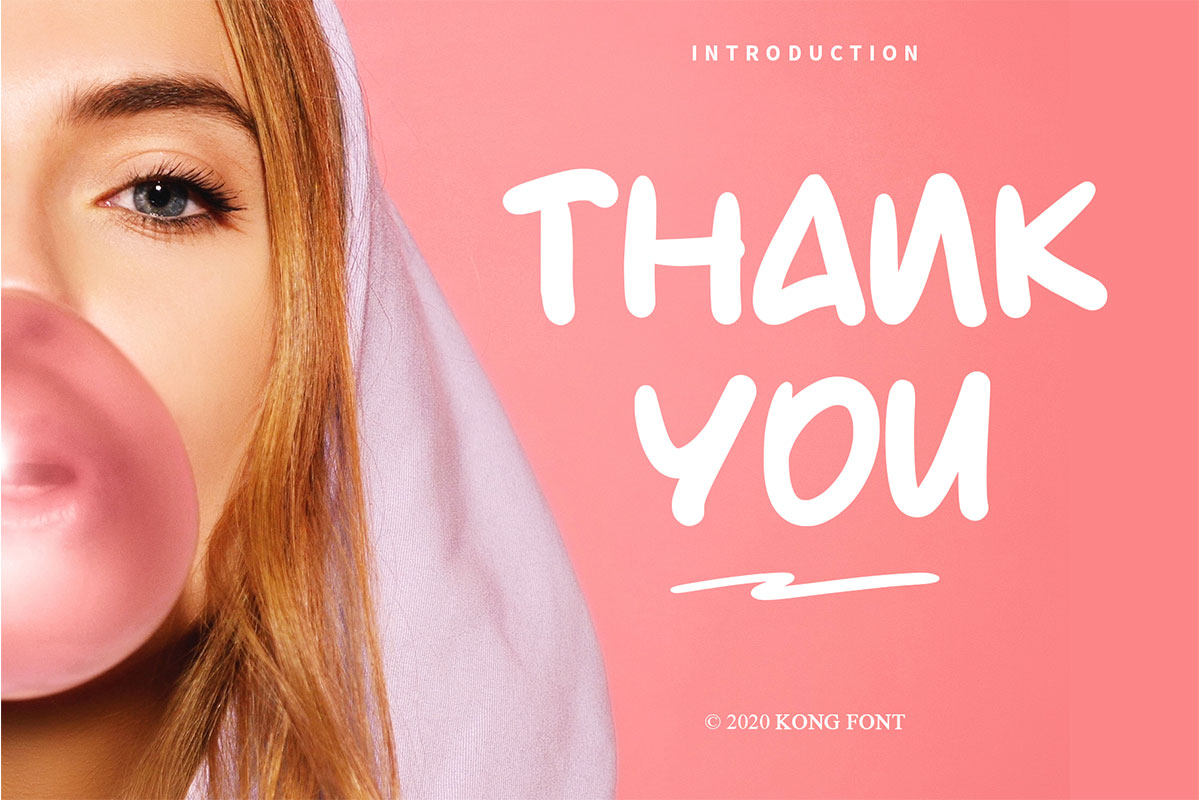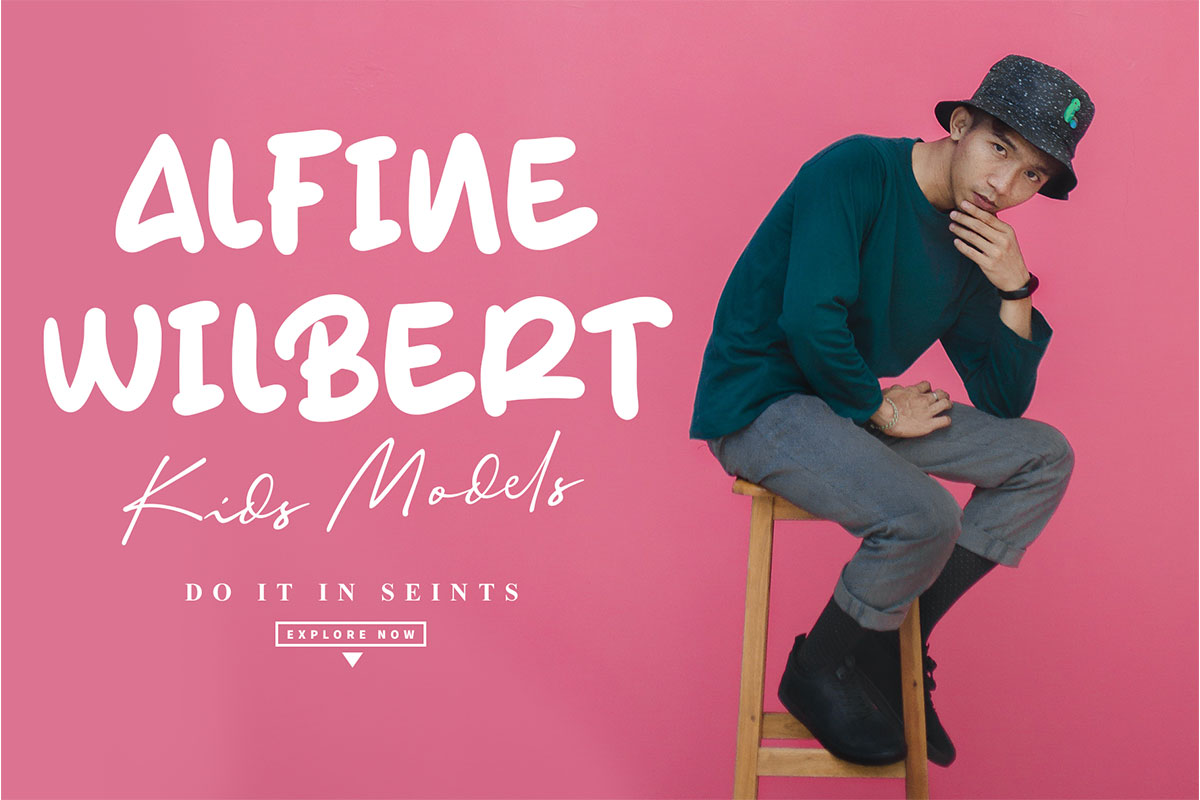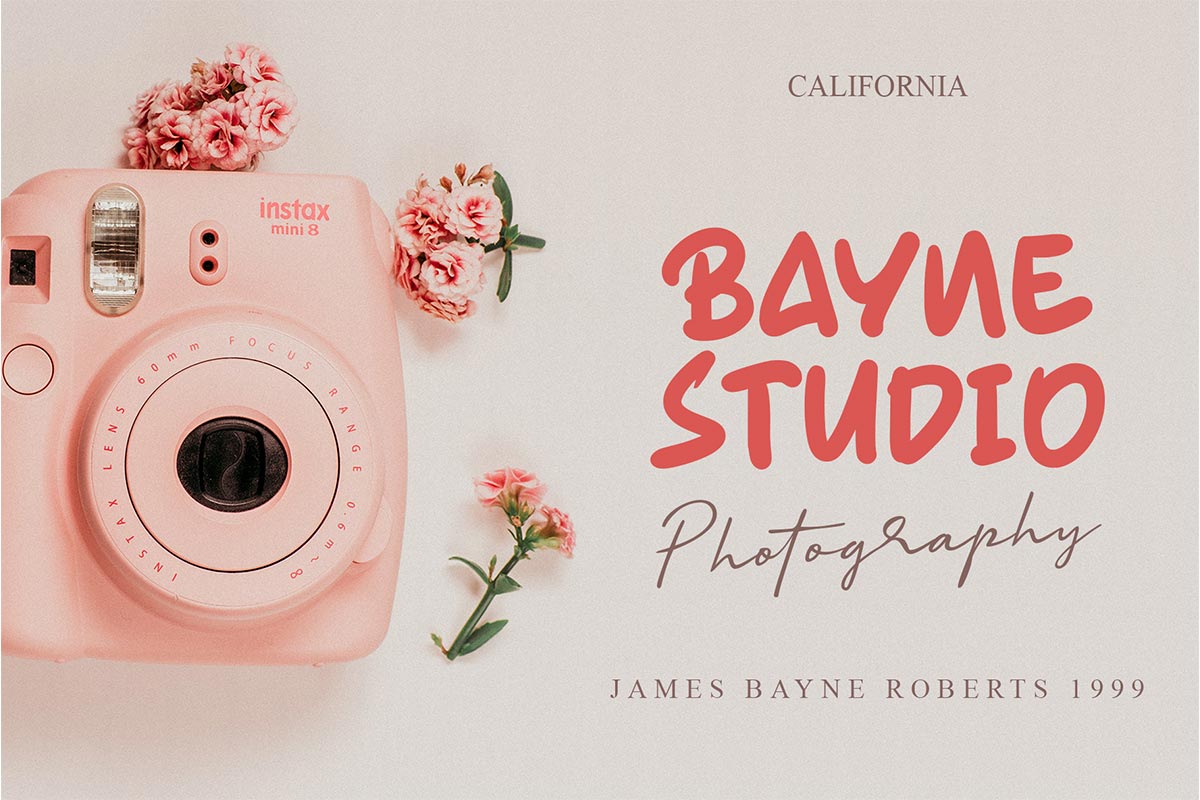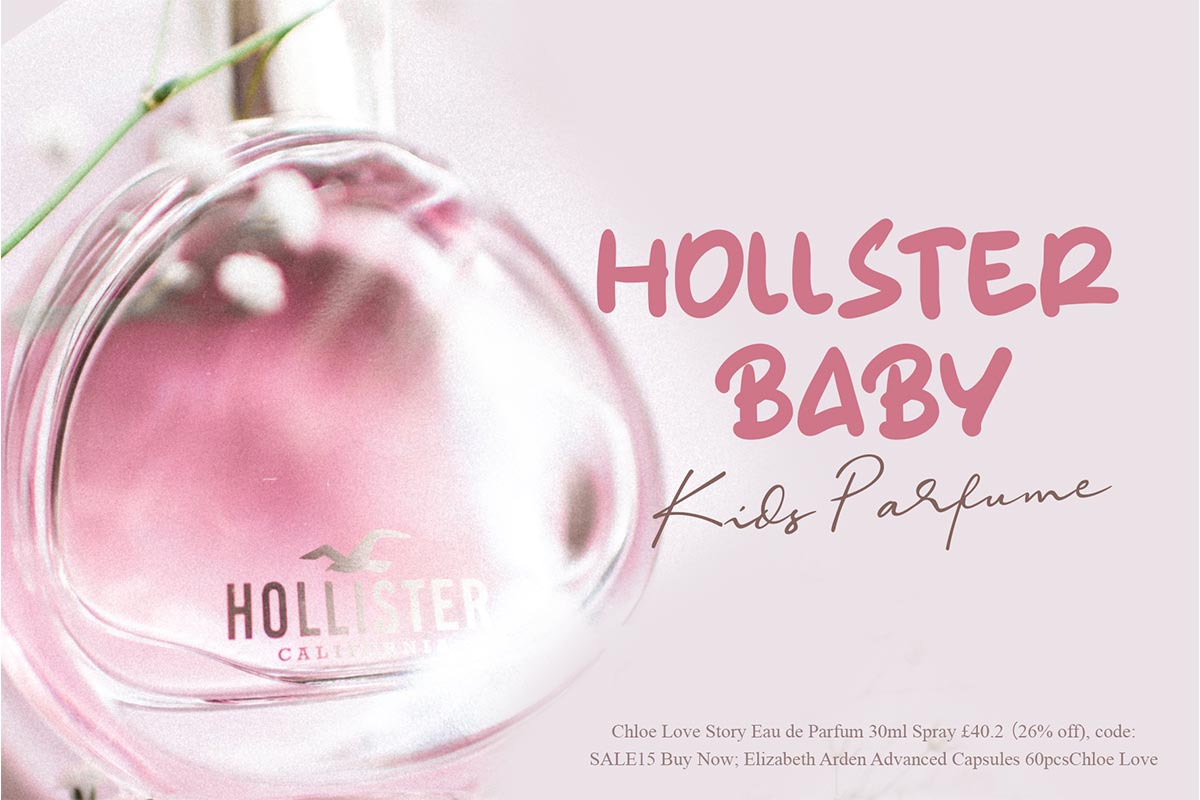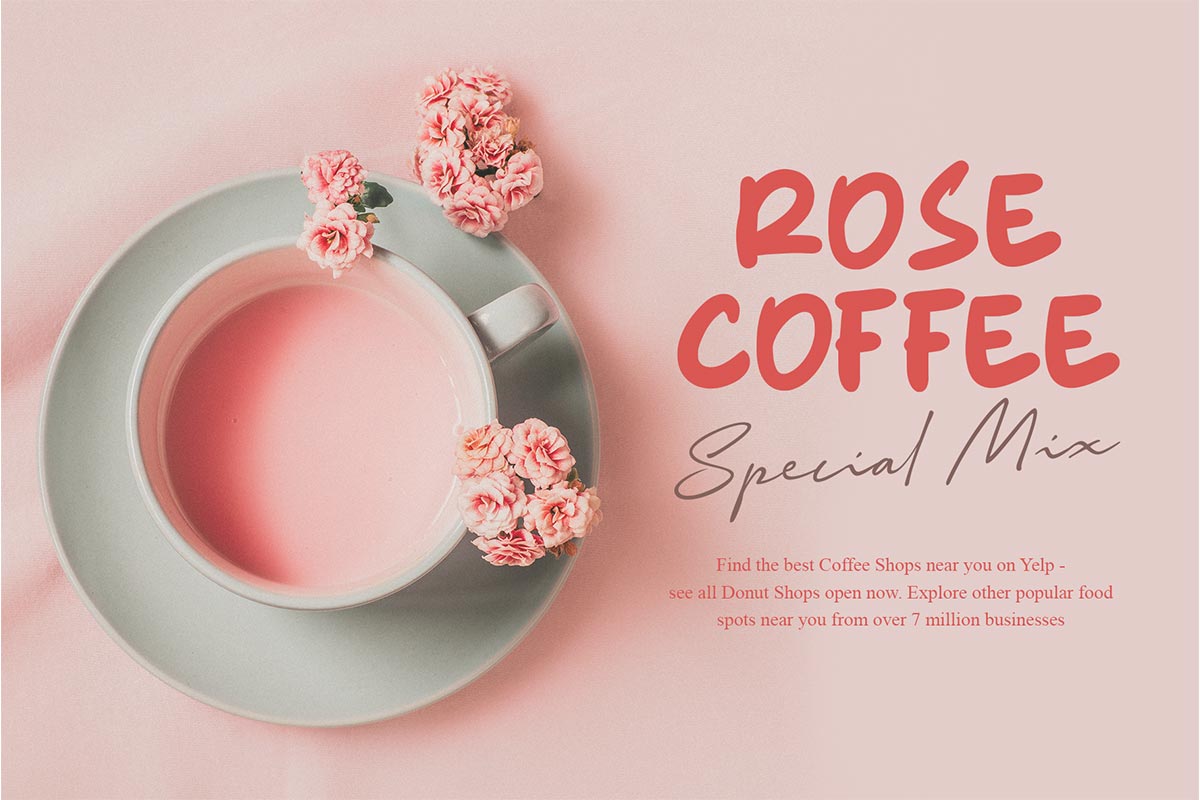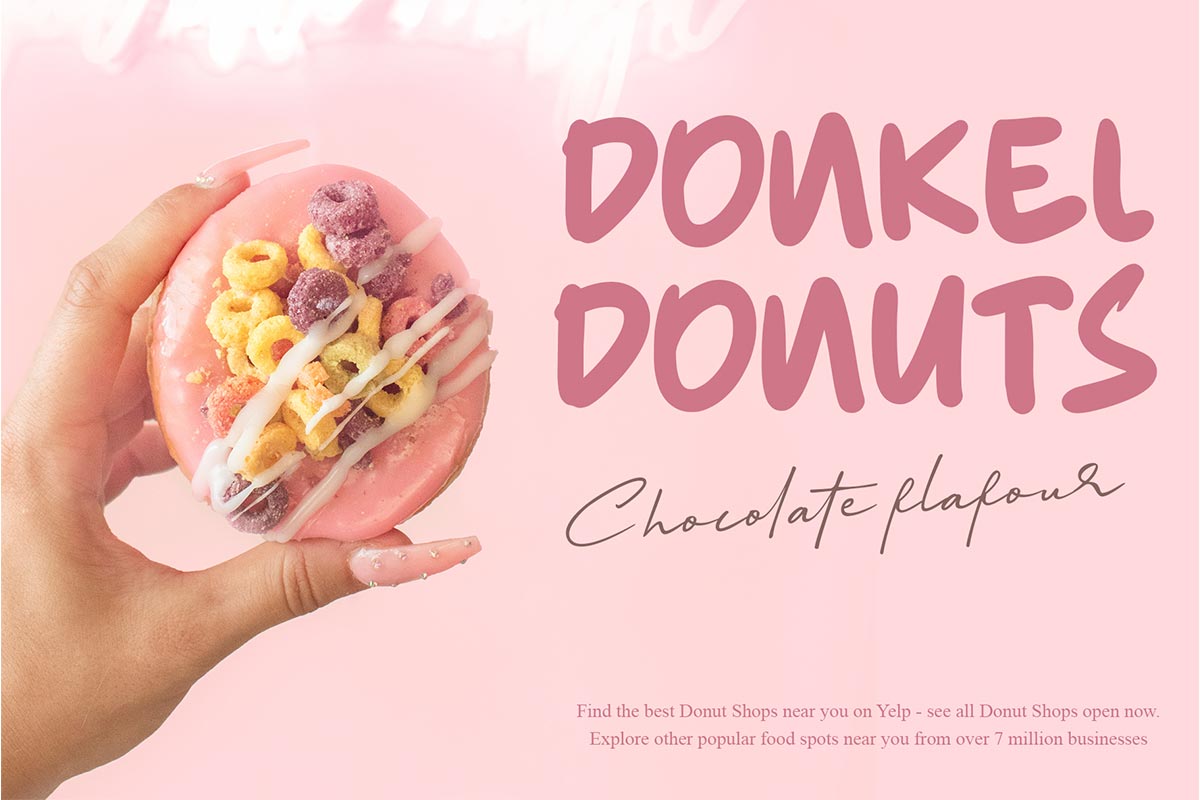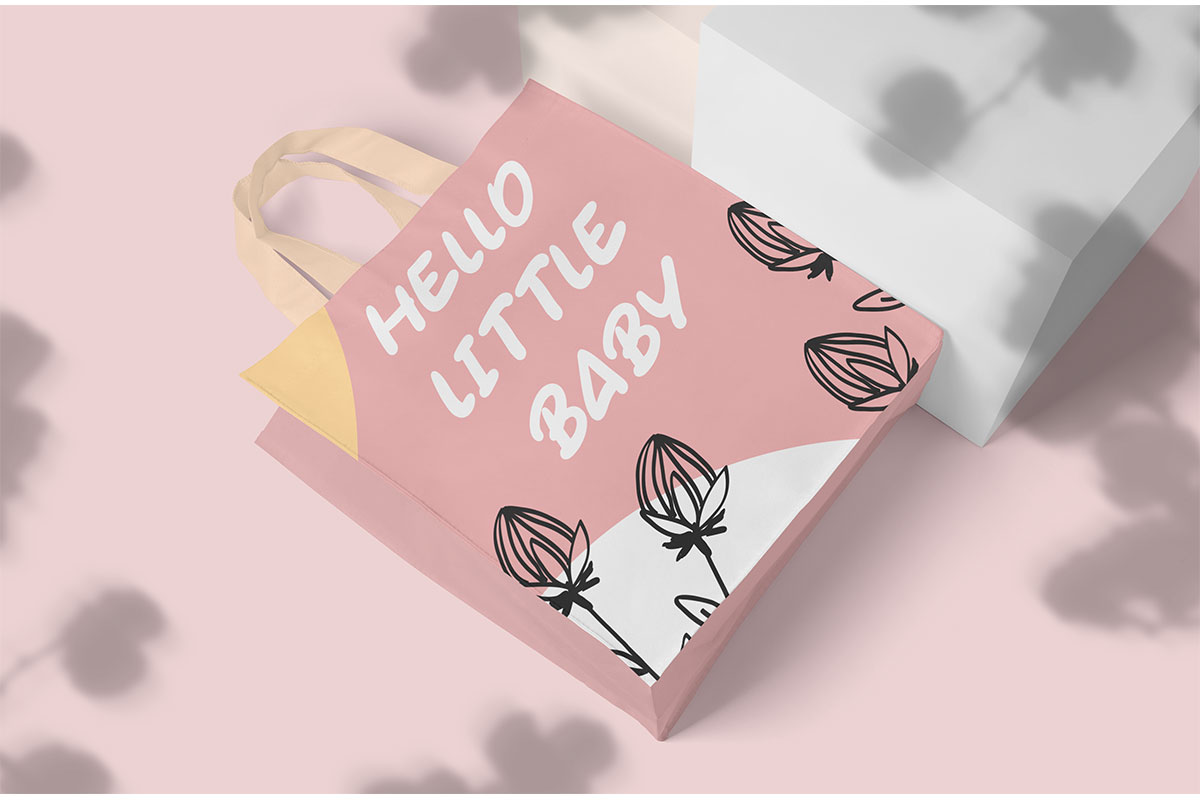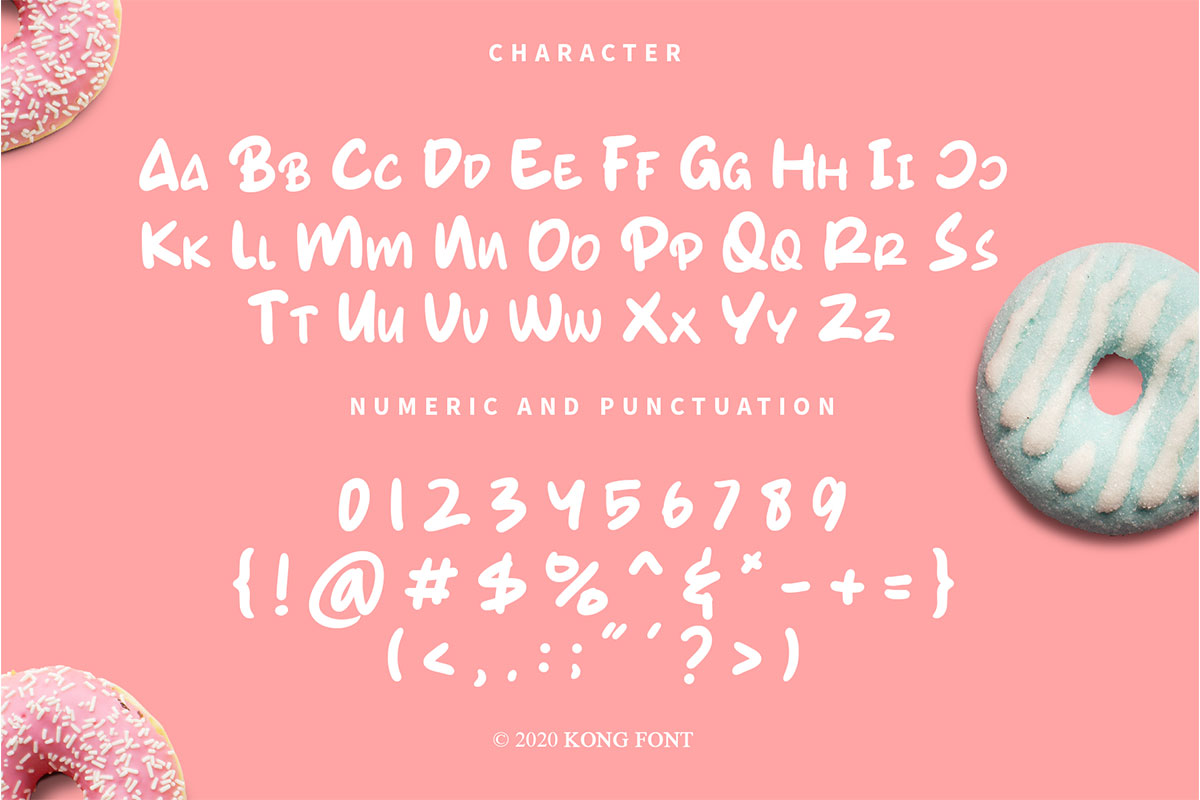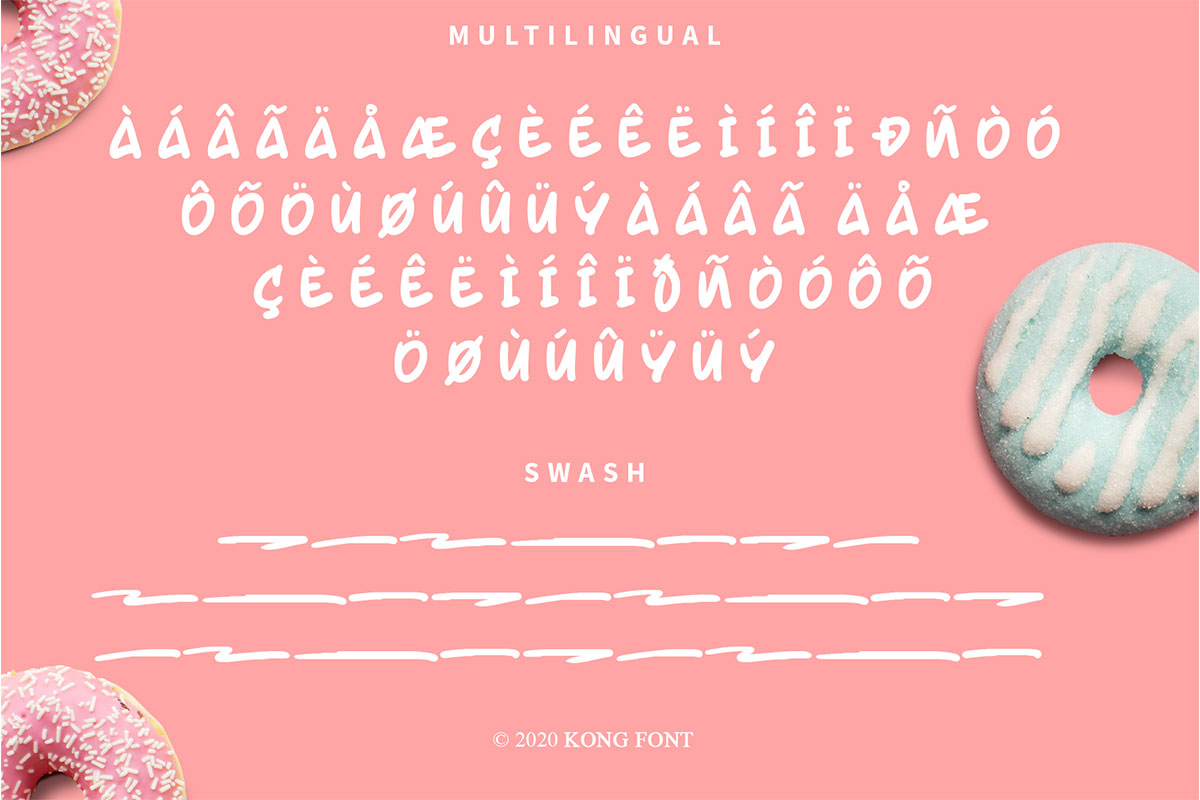
Gumy Monster Display Font Gumy Monster Handwritten Font was created to present a simple and cute impression to anyone who sees it. This is in line with the characteristics of clean, slightly inflated, and cute letters. Each letter can be distinguished easily. People who read texts using this typeface do not have to try hard to read and understand them. As the name implies, Gumy Monster Handwritten Font is perfect for children's equipment, such as clothing item designs. This is because of its simple and cute shape. This type of font can be printed in small or large sizes and still looks good up close or from a distance. For people who like simplicity and do not like the appearance of a busy design, Gumy Monster Handwritten Font will be a good choice. This font is also suitable for use as a digital font, such as in a video, movie title, and displaying quotes on social media. Our Display font collection is compatible to use as; Figma fonts, Canva fonts, Freepik Fonts, and Adobe Fonts. They also work as Windows Fonts and Apple Fonts. For your social media needs, you can use and install fonts in our collection of Espot & Futuristic fonts to use as Instagram Fonts, Facebook Fonts, and Twitter Fonts.